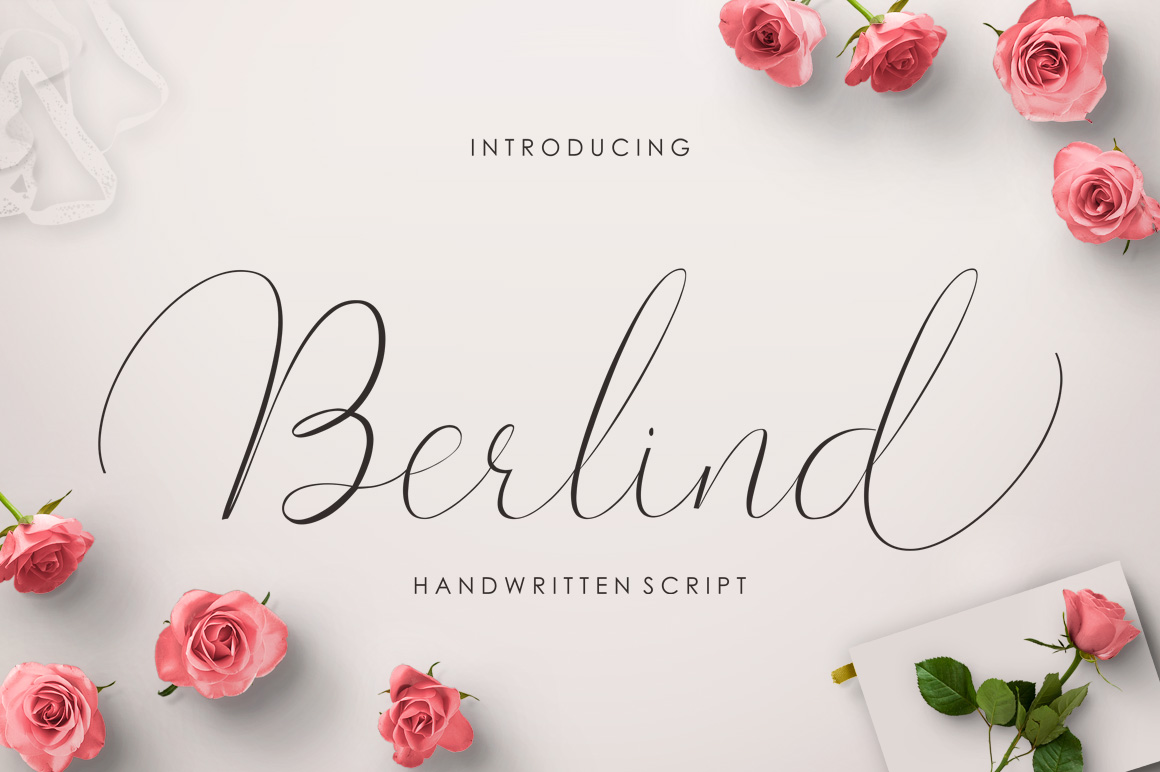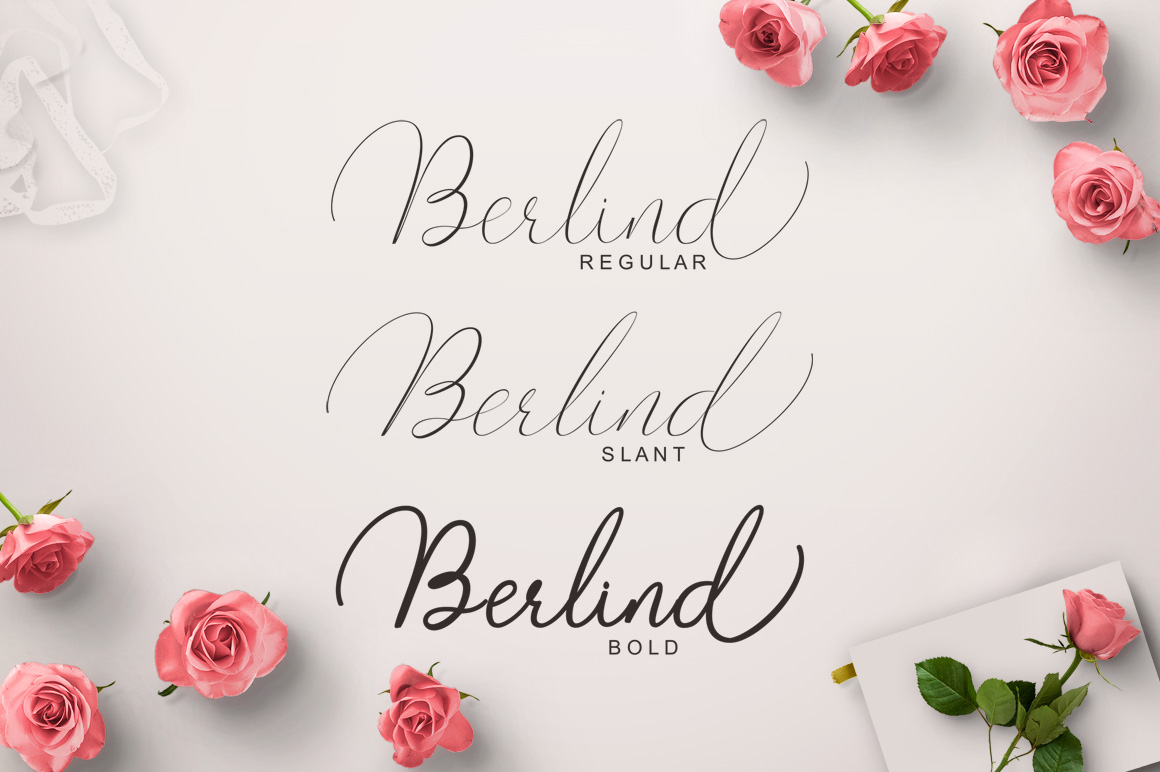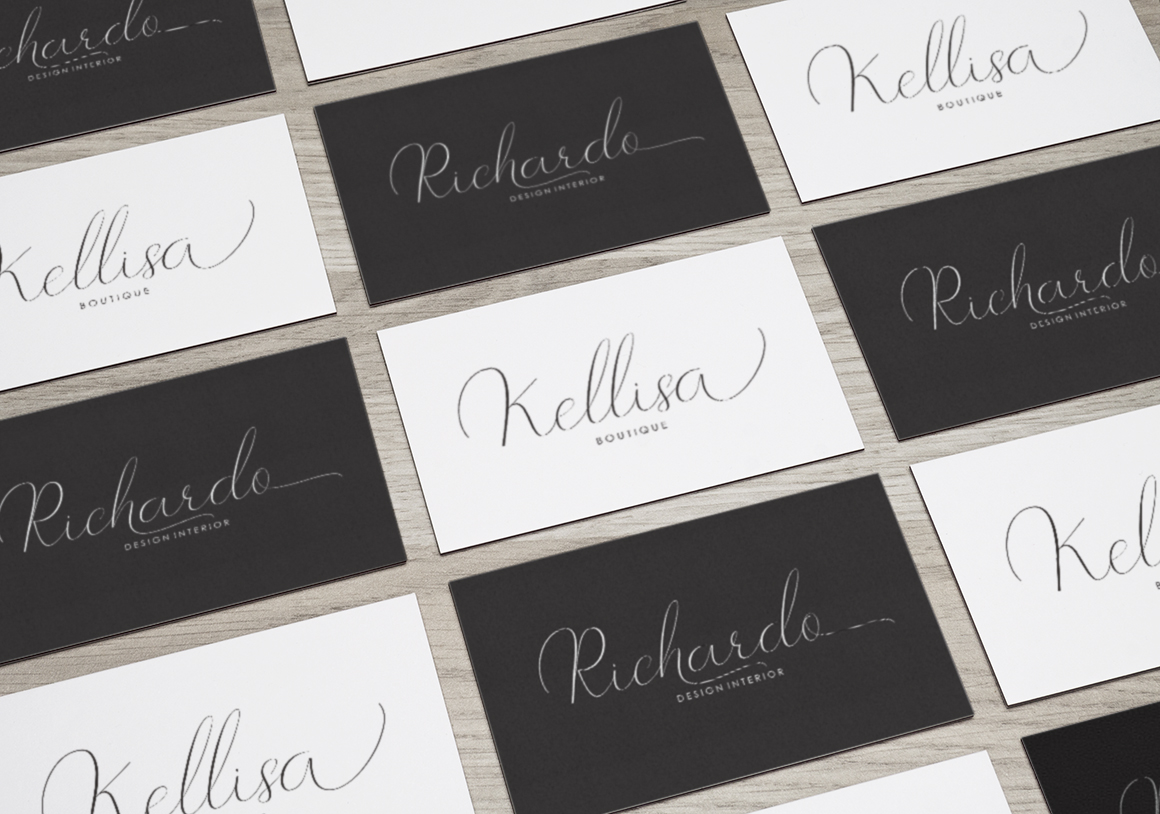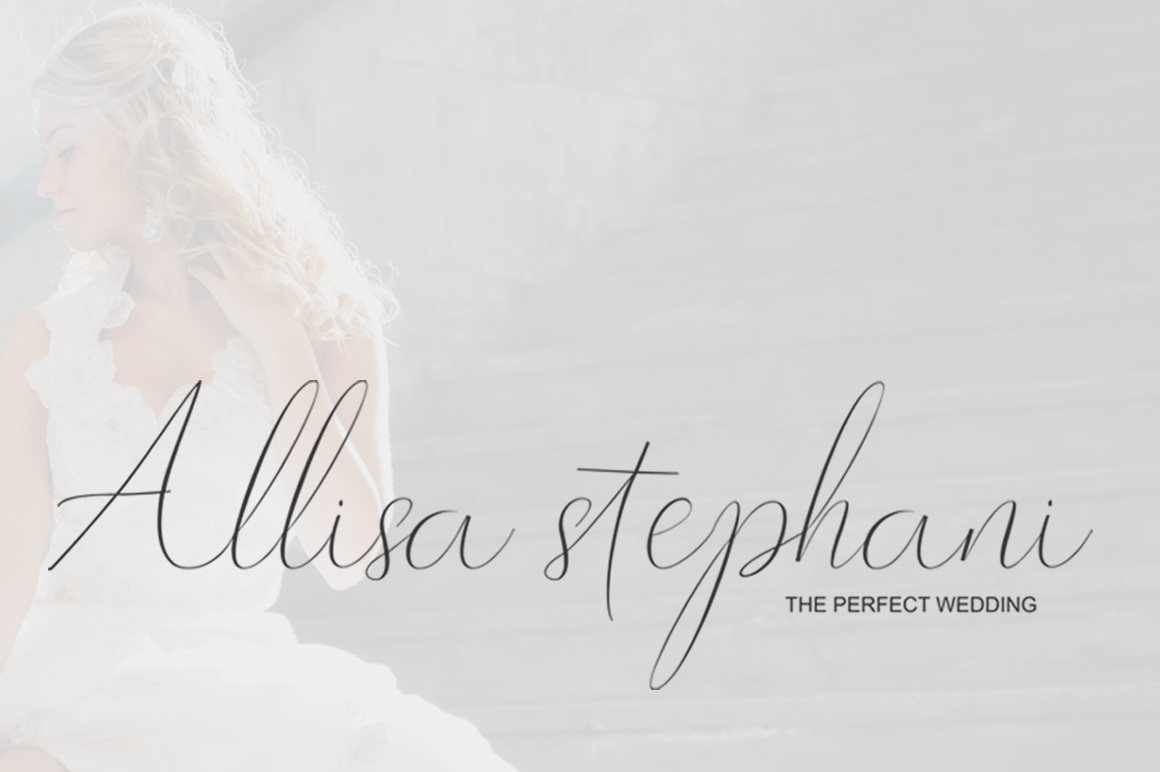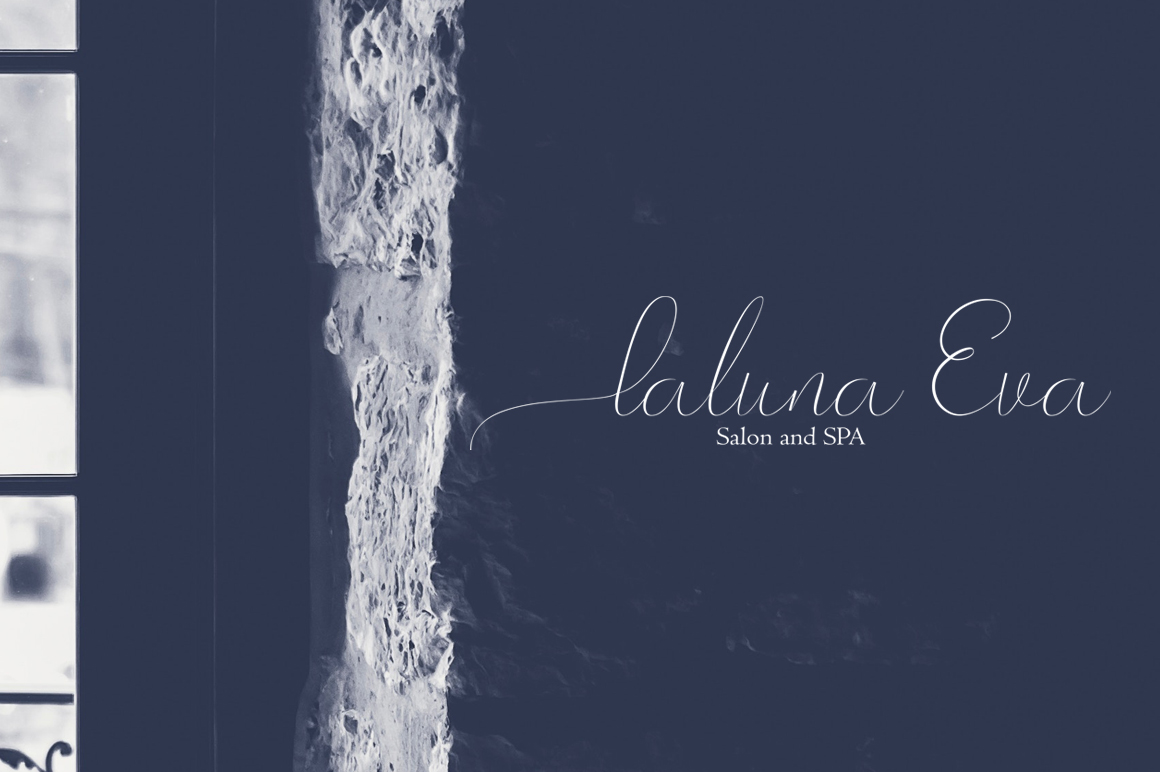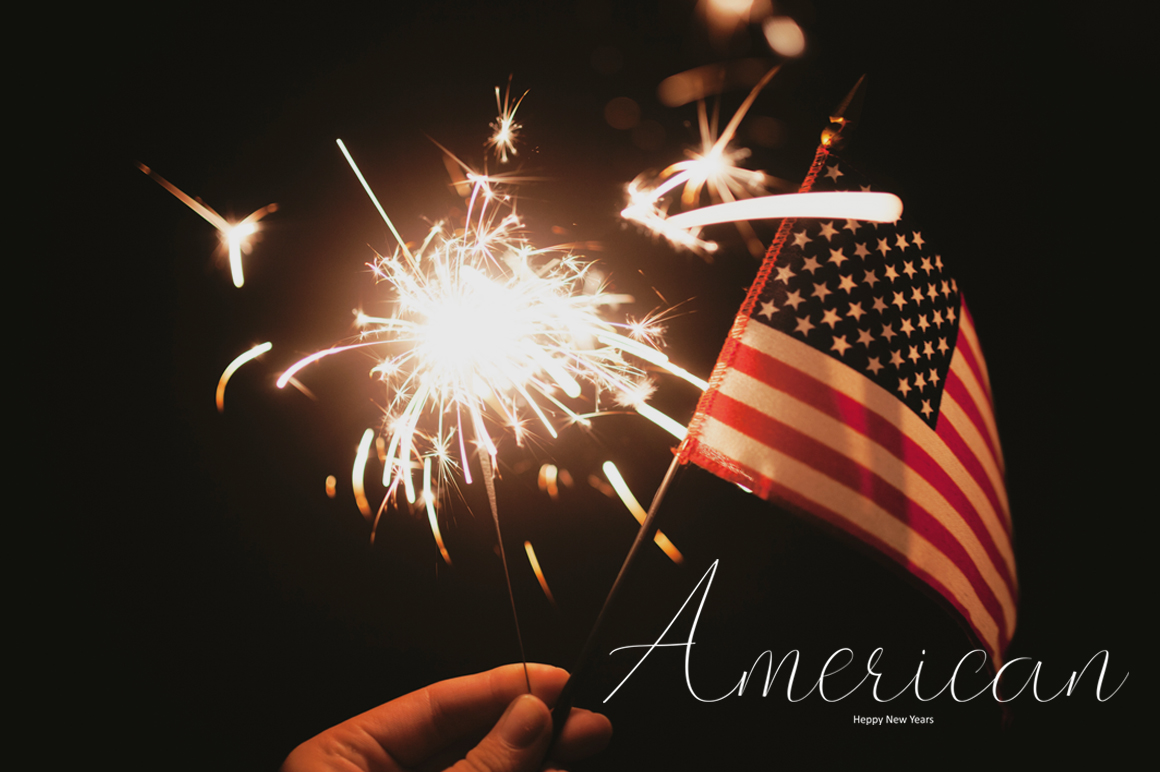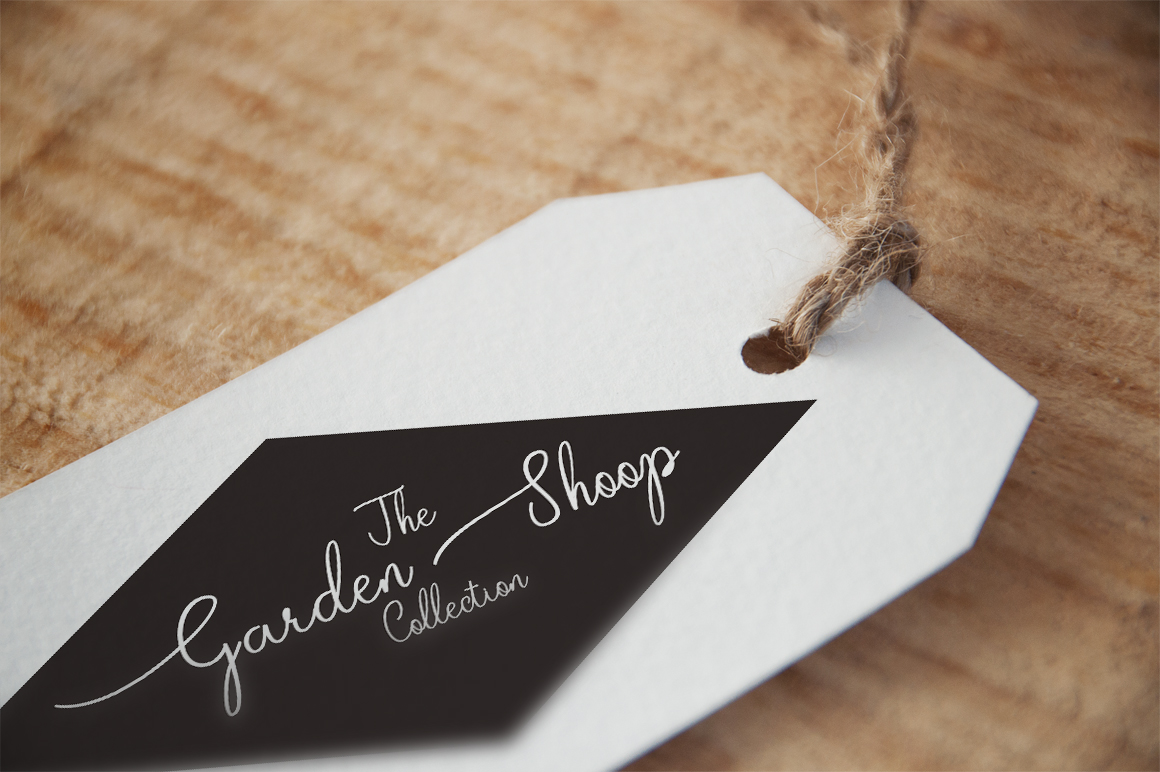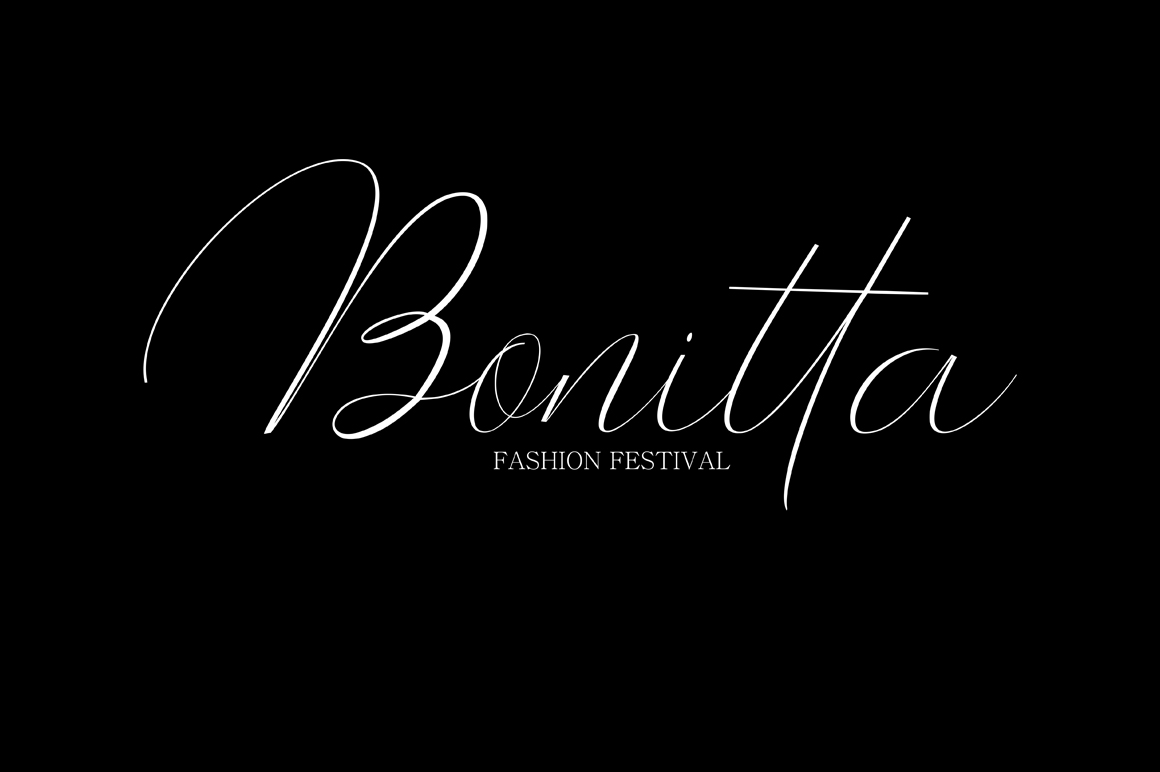
Berlind Font
About Berlind Font
Berlind Script is a handwritten typeface with classic roots, a beautiful formal script with an elegant touch. It works perfect for a wide range of brandable designs and styles. Berlind features alternate characters, including: initial and terminal letters, alternates, swashes, ligatures and multiple language support.